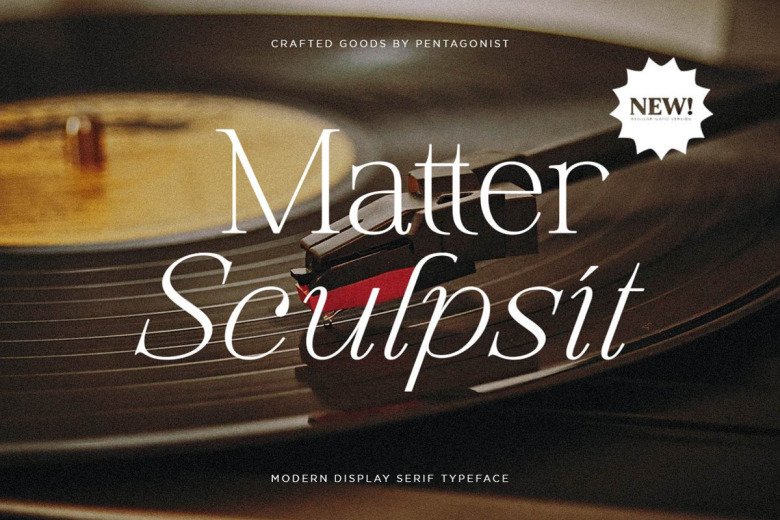
Matter Sculpsit Font
Matter Sculpsit Font feels playfully nostalgic and delivers an incredible vintage aesthetic. Use this serif font to add that special retro touch to any design idea you can think of!
Matter Sculpsit Serif Font